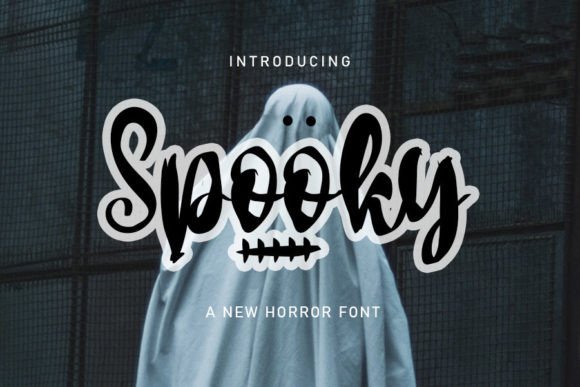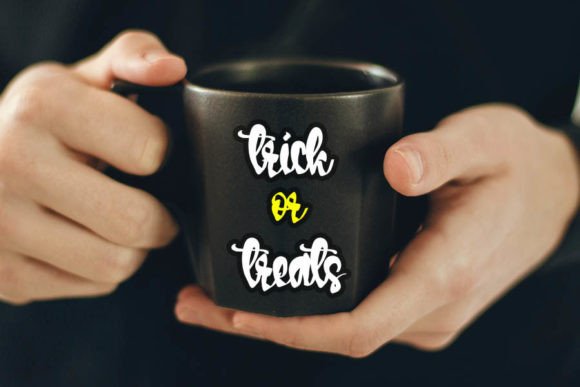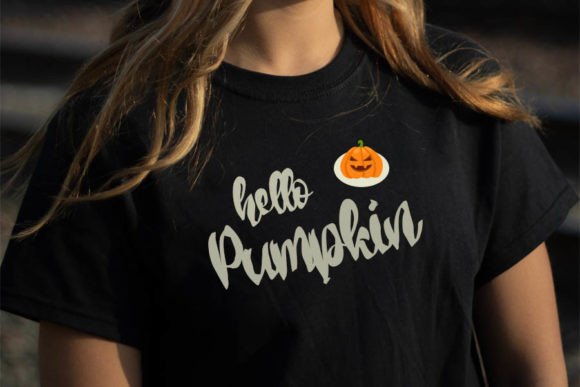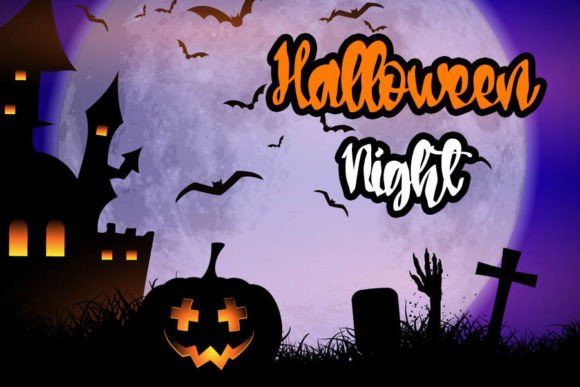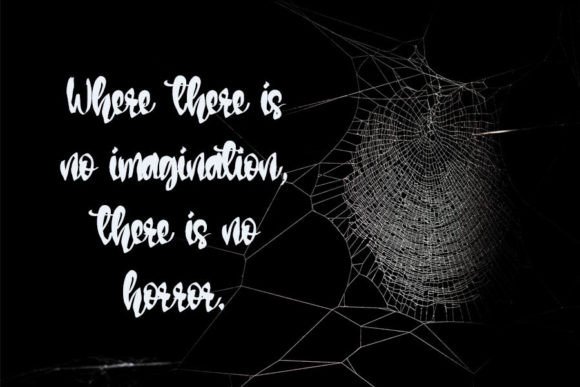
Spooky Font
Spooky Handwritten Font – Fun and Scary Typeface
The Spooky Handwritten Font is a playful yet eerie script typeface designed to bring character and creativity to your projects. With its quirky handwritten strokes and slightly scary vibe, it adds personality to both festive and casual designs. Whether you’re working on Halloween invitations, quotes, or branding, this font is perfect for making your work stand out.
A Script Font with Spooky Charm
The Spooky Handwritten Font combines bold handwritten details with a fun and slightly chilling atmosphere. Its creative strokes give it a distinctive style, while its readability ensures it works across many design applications. Because of this, it is ideal for both themed projects and everyday creative use.
Perfect for Halloween and Greeting Cards
One of the most popular uses of the Spooky Handwritten Font is in Halloween-themed projects. Posters, invitations, and social media posts instantly feel more festive with its scary yet playful style. At the same time, it works beautifully for greeting cards, notes, and branding that needs a quirky handwritten edge.
The Spooky Handwritten Font adapts well to multiple design needs. From Instagram posts and quotes to packaging and product labels, it brings a playful handwritten look that feels modern and creative. Its versatility ensures it works just as well in digital formats as in printed designs.
Why Designers Love Spooky Font
Designers enjoy using the Spooky HandwrittenFont because it balances creativity with usability. Its fun, slightly scary details make designs unique, while its clear readability ensures they remain professional. This mix makes it a valuable font for seasonal and general projects alike.